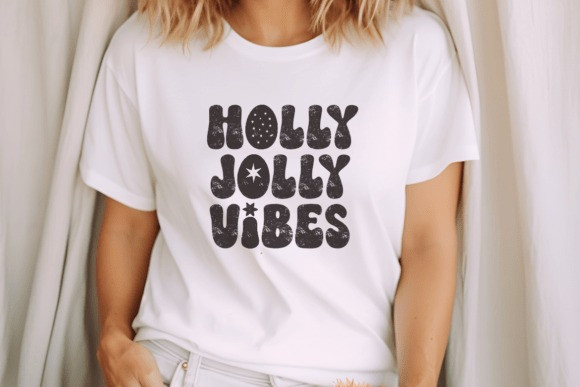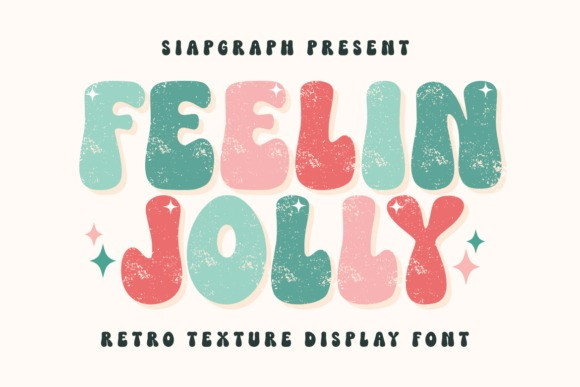
Feelin Jolly Font
Feelin Jolly Font is a chunky, textured, and groovy display font inspired by the heartwarming, playful nostalgia of vintage Christmas decorations and the popular retro aesthetic of the 60s and 70s. Its distressed, handmade texture and bold, bubble letters give it a unique charm.
This font is a must-have for creators targeting the Christmas, Winter, and Holiday markets in craft, POD (Print On Demand), and DIY. The textured look is excellent for adding a tactile, vintage feel to digital designs.
Perfect for: crafting SVG designs, retro holiday t-shirts, seasonal mug designs, Christmas sublimation projects, personalized gift tags, festive signs, holiday party invitations, scrapbooking, playful branding for winter events, and cozy home decor.
Great for holiday themes such as Christmas, Winter Solstice, New Year’s, and general Seasonal Celebrations, instantly bringing a cozy, funky, and joyfully vintage vibe to every project!